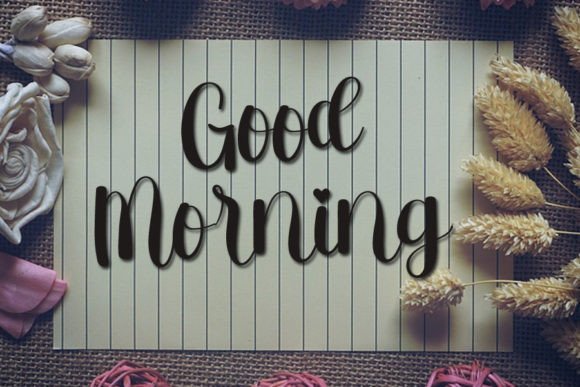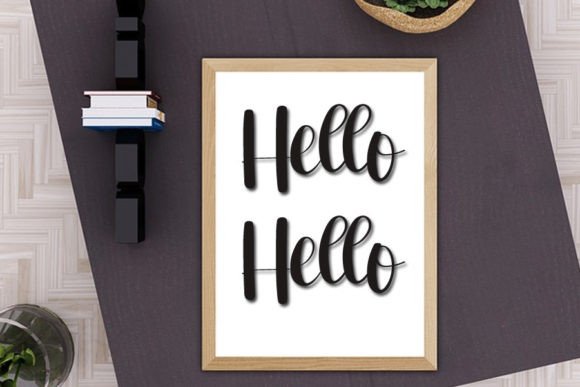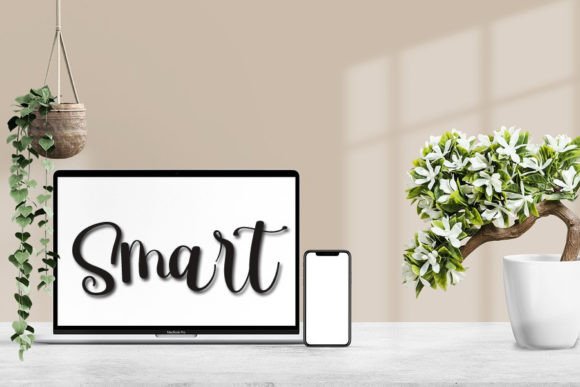
Introduction to Oktober Font
Have you ever stumbled upon the perfect design element that instantly elevates your creative project? For many designers, that ‘aha’ moment comes when they discover a unique font that perfectly captures the essence of their vision. For me, that moment arrived when I stumbled upon the charming Oktober Font.
This whimsical handwritten font has become a go-to design resource for many creatives, and for good reason. With its playful and high-quality aesthetic, the Oktober Font adds a trendy touch to any design idea. Whether you’re working on a project that requires a transparent background or a bold statement, this font is sure to bring a smile to your face and a spark to your design.
Key Features of Oktober Font
- Transparent background, allowing for seamless integration into various design elements
- Includes a range of font styles and weights, perfect for adding depth and variety to your design
Honest Review: Oktober Font
As a designer, I’m always on the lookout for high-quality design resources to elevate my creative projects. Recently, I stumbled upon the Oktober Font, and I’m excited to share my honest review with you.
- ✨ High-quality typography with a unique, festive feel
- ✨ Transparent background option for easy layering and customization
- ⚠️ Limited character set, which may not be suitable for longer texts
- ⚠️ Some users may find the font a bit too ornate or busy
Overall, I’m impressed with the Oktober Font’s potential to add a touch of festivity to your design projects. While it may have some limitations, its unique design and high-quality feel make it a great resource for designers looking to create something special. Whether you’re working on a holiday-themed project or simply want to add some visual interest, the Oktober Font is definitely worth checking out.
Oktober Font
Introduction to Oktober Font
Oktober Font is a free design resource that offers a high-quality, transparent background font perfect for creative projects. With its unique style and versatility, it’s an ideal addition to any design collection.
Tips for Getting the Most Out of Oktober Font
For the best results, use Oktober Font with a transparent background to create a seamless design. Experiment with different font sizes and styles to add visual interest to your projects.
Common Use Cases for Oktober Font
Oktober Font is ideal for creative projects such as logo designs, social media graphics, and marketing materials. Its unique style and high-quality design make it a popular choice among designers.